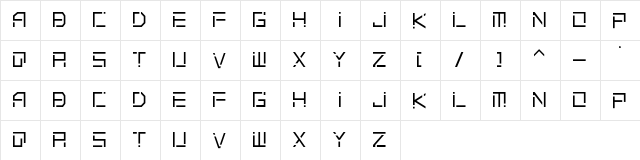
Planus Regular
| Designer | Taznixart. 2020 |
Design Context for Planus Typeface
Planus offers clean, dependable letterforms without strong stylistic allegiance, making it a practical choice for designers who need flexibility.